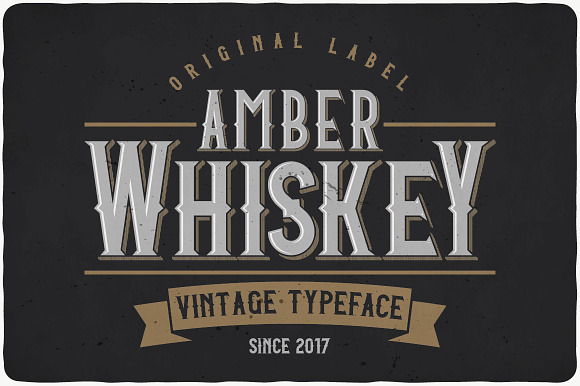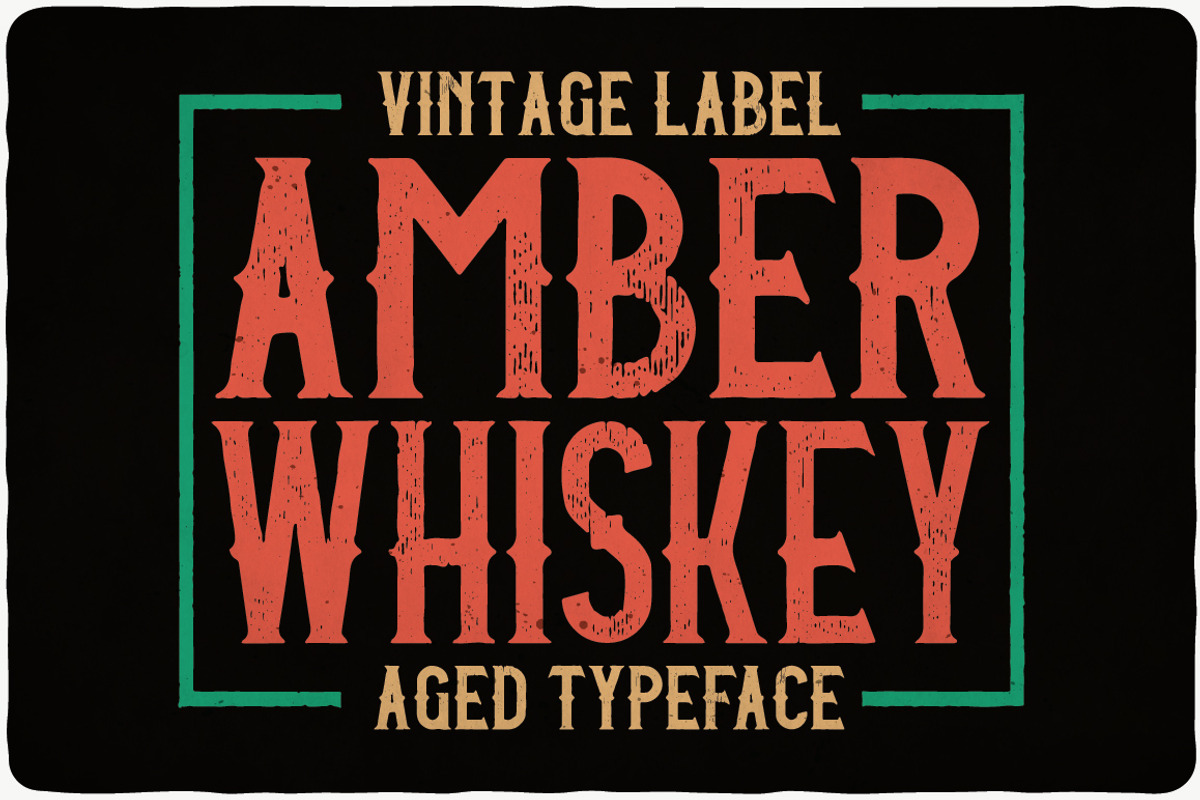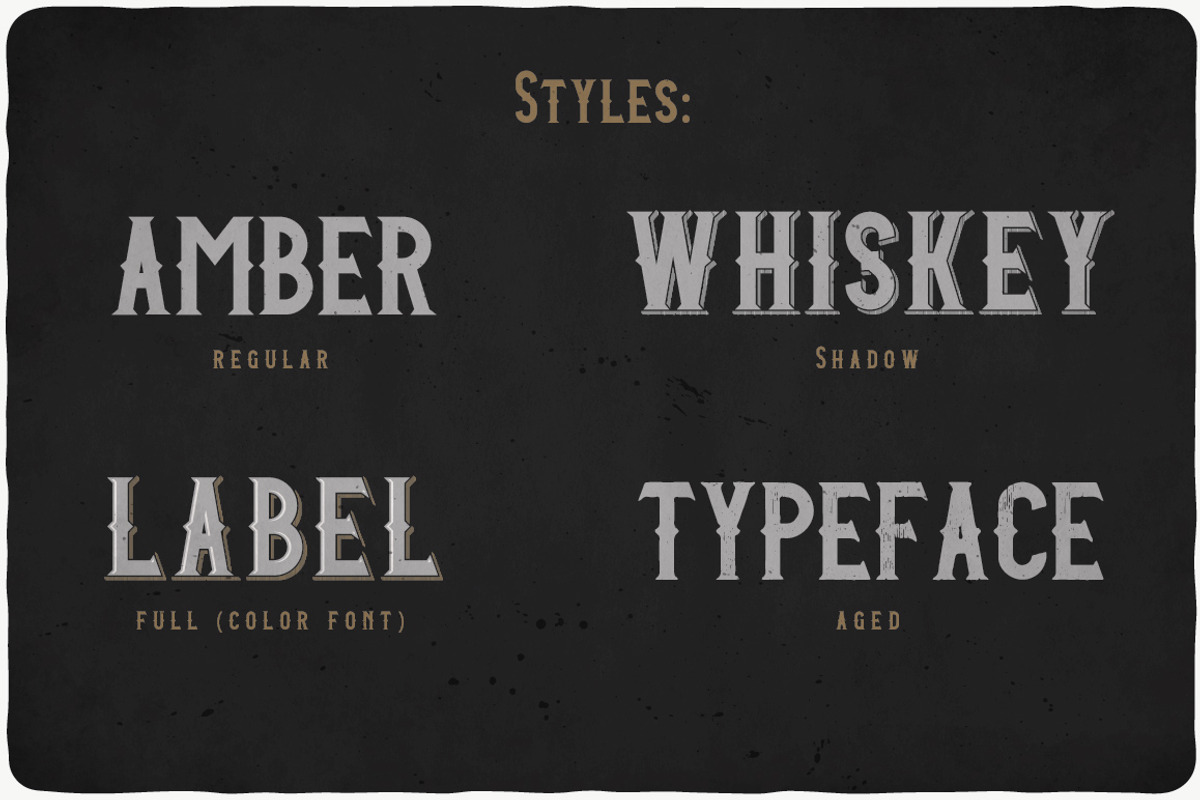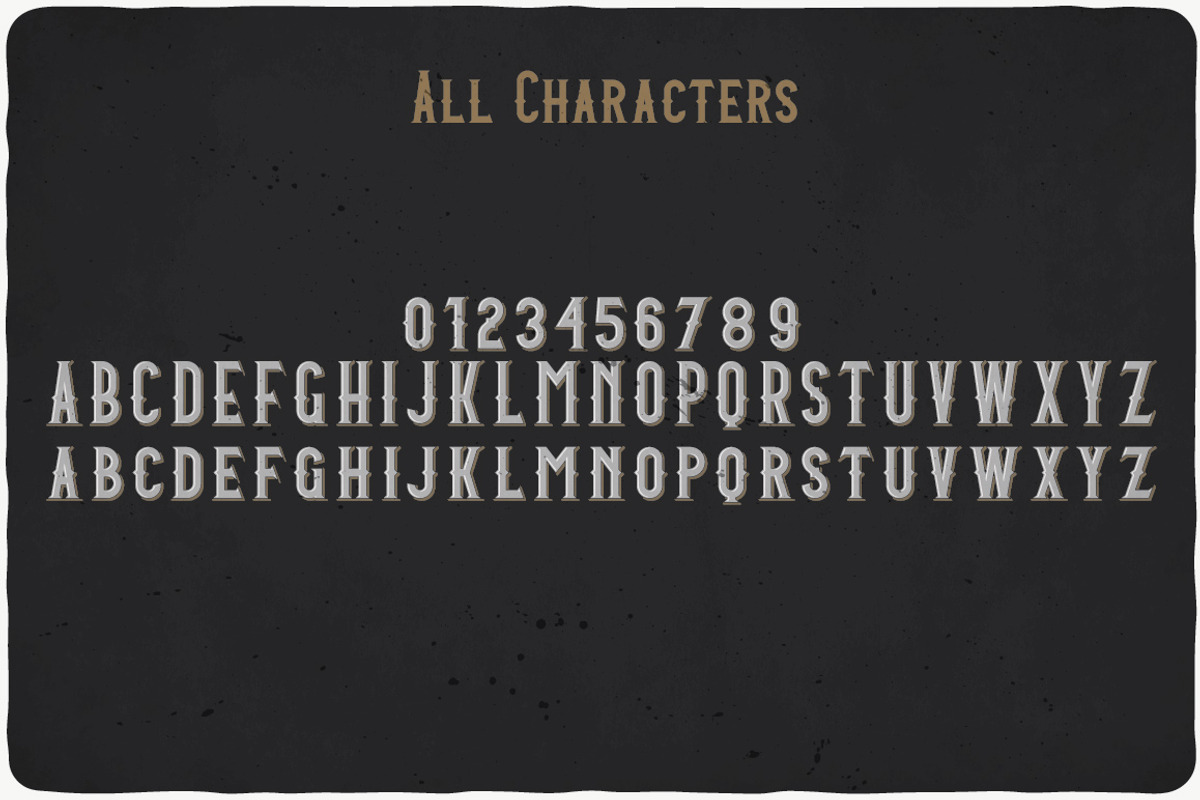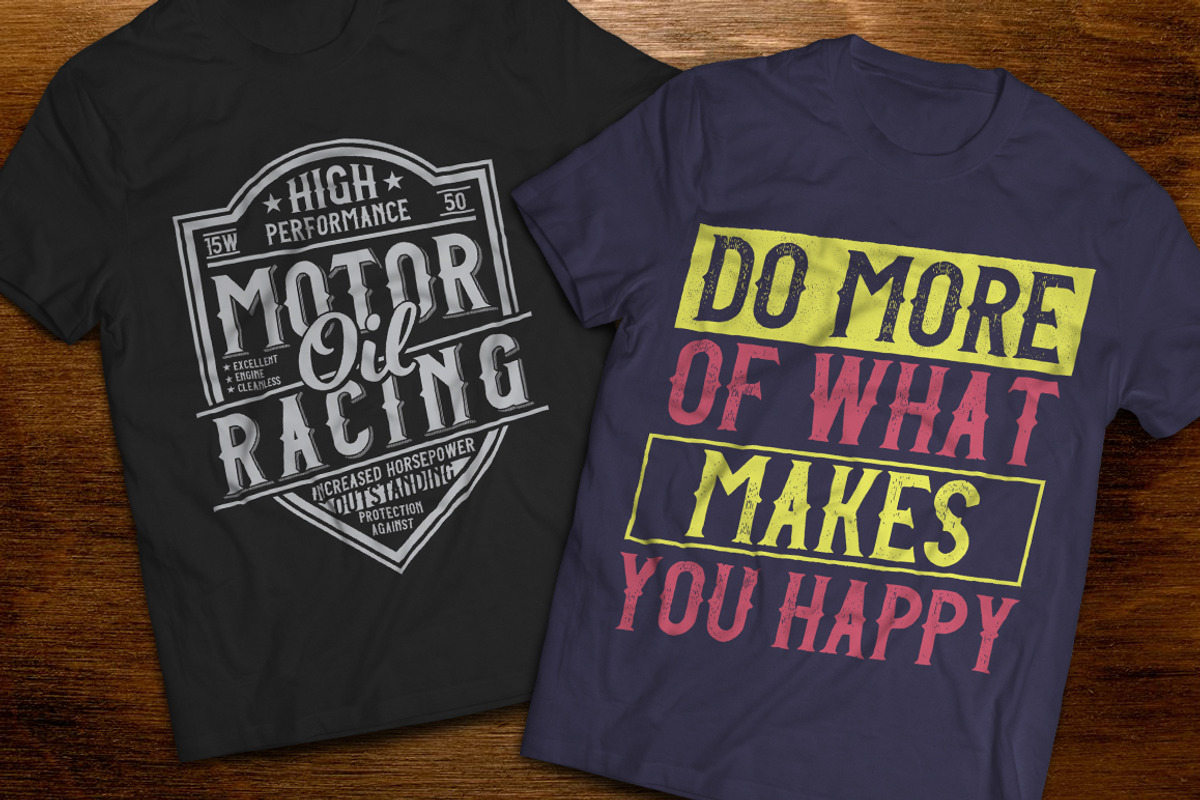
Amber Whiskey Typeface
Introducing a vintage look label typeface named "Amber Whiskey". This typeface includes four styles, for sample look at 3rd preview. Typeface will good viewed on any yours design.
Why Amber Whiskey Typeface is worth a look
Amber Whiskey Typeface by VozzyStock fits naturally into Branding, posters, packaging, typography.